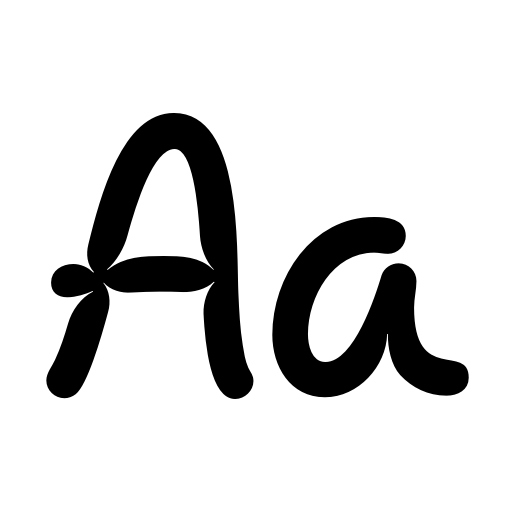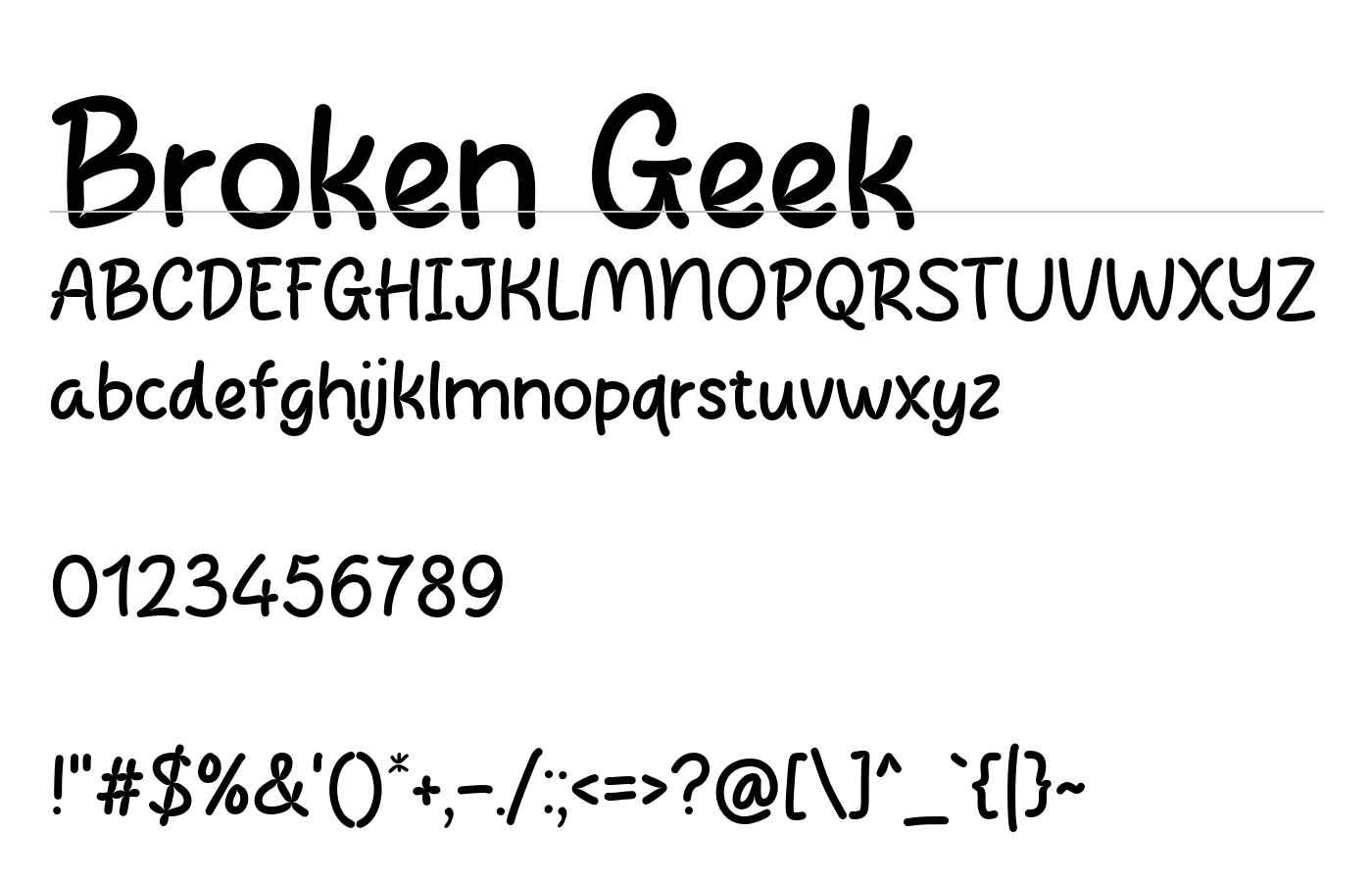
Broken Geek is a playful, casual handwritten sans serif font with a friendly and slightly quirky character. Its rounded, irregular letterforms and variable stroke widths give it a warm, approachable feel, making it ideal for informal designs such as comic books, children’s materials, or creative branding that seeks a fun and unique vibe. This font works best in display settings where its charming personality can stand out and engage the viewer.
Broken Geek Font
About Broken Geek Font